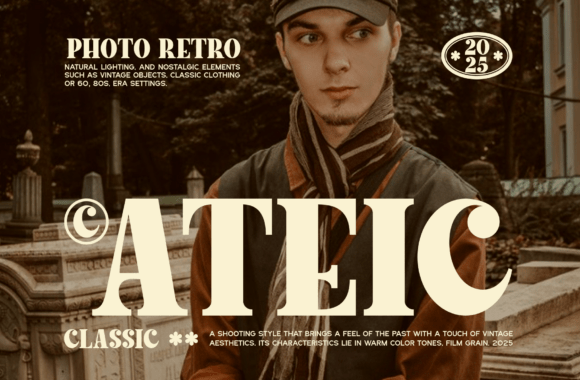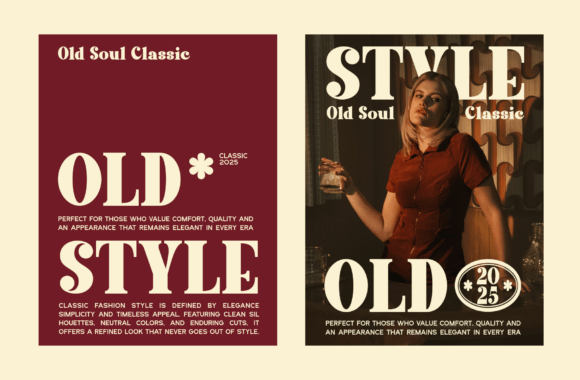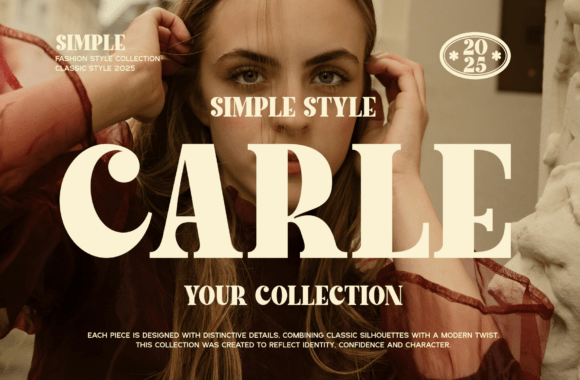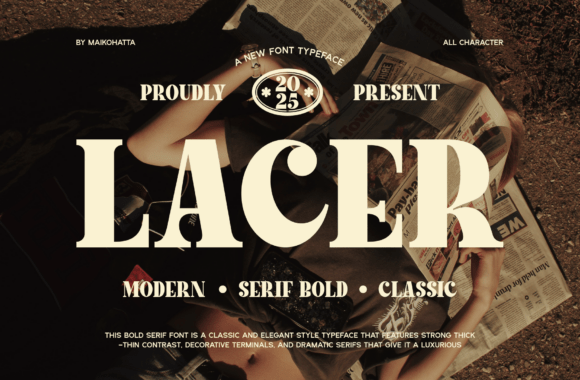
Introduction to Lacer Font
Lacer is a serif bold typeface that features thick, prominent strokes and characteristic serif endingsβ€”the small lines or extensions at the ends of letterforms.
This style conveys a sense of strength, formality, and classical sophistication The bold weight enhances visibility and emphasis, making it ideal for headlines, logos, book covers, or any application where readability and authority are important.
Key Features of Lacer Font